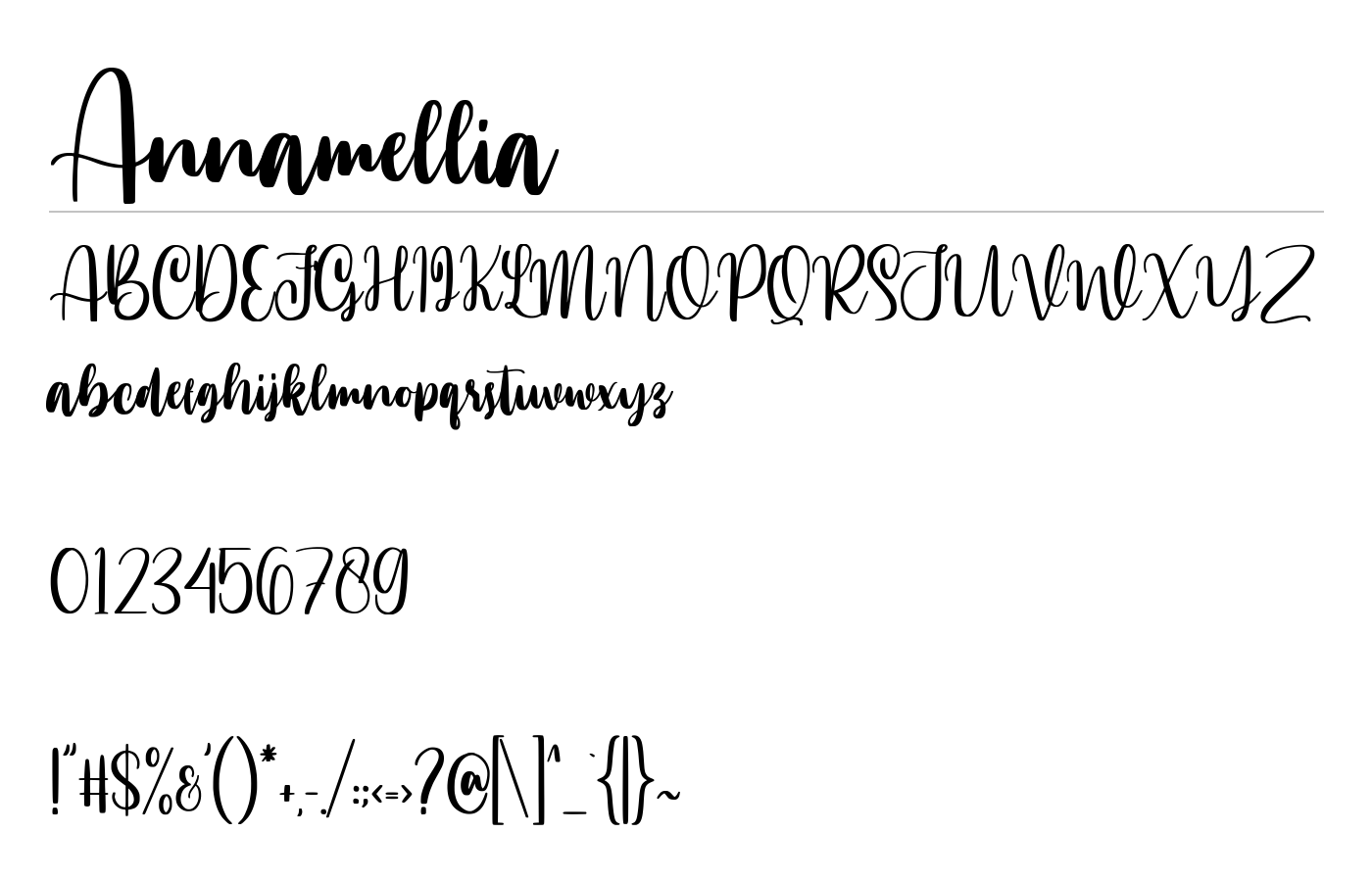
Annamellia is a charming script font featuring a harmonious blend of smooth, flowing strokes and playful letterforms with varied weight. Its elegant uppercase letters contrast with the bolder, more solid lowercase, making it perfect for stylish branding, invitations, and creative projects that want a personal yet polished touch. This font captures a friendly, modern elegance well-suited for fashion, beauty, and lifestyle designs.
Annamellia Font